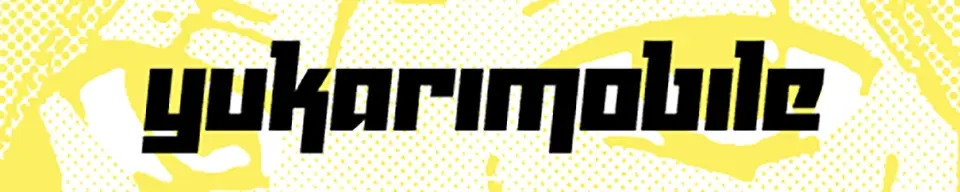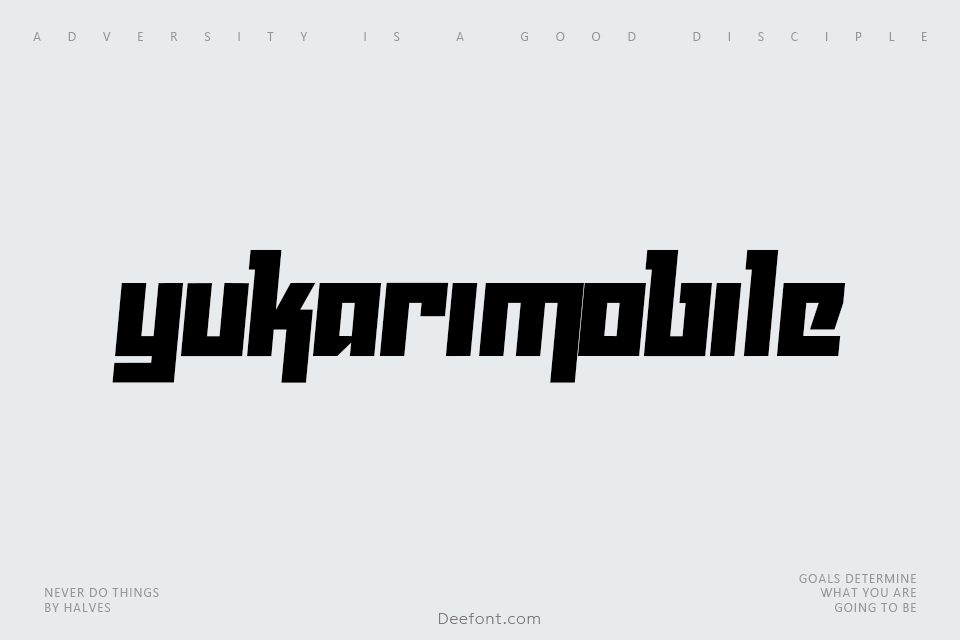
Yukarimobile Font
Yukarimobile is a bold, contemporary display typeface with a distinctly modern and geometric aesthetic. Designed by Vic Fieger, this sans-serif font exudes technological prowess through its crisp, angular forms and uniform weight distribution. Its slightly condensed letterforms create a dynamic, efficient appearance ideal for headlines, branding, and display purposes. The font combines clean lines with confident geometry, delivering an impactful look that suggests speed and contemporary sophistication. With its contemporary feel and square structural elements, Yukarimobile excels in creating eye-catching typography for digital and print media requiring a modern, tech-forward aesthetic.